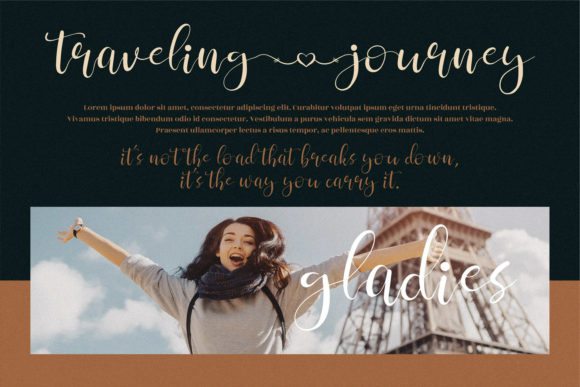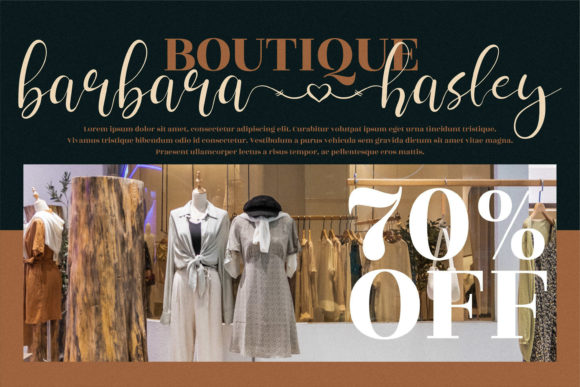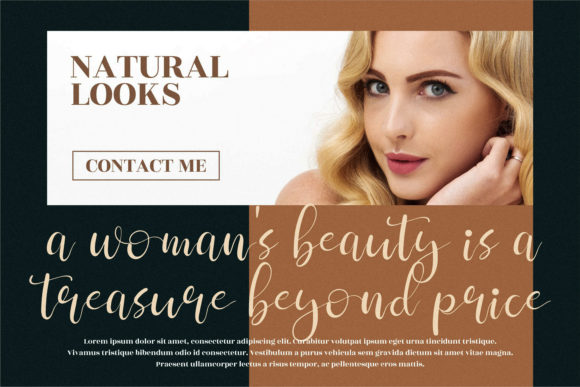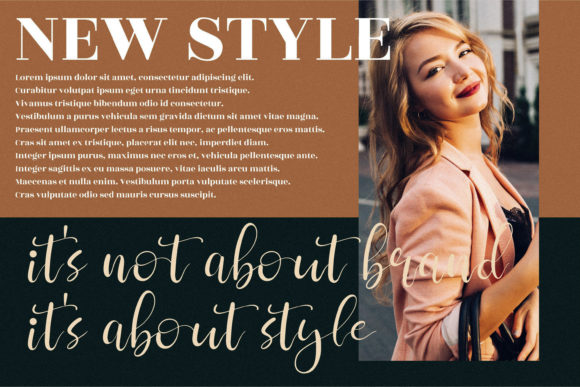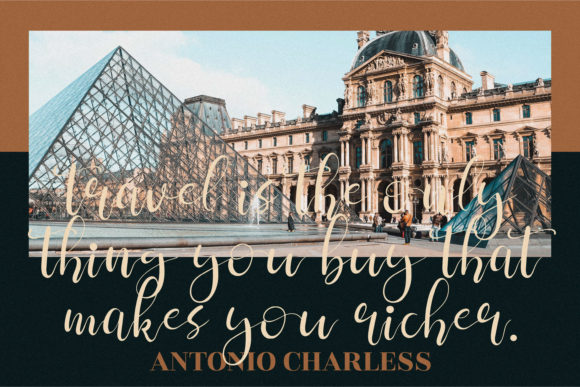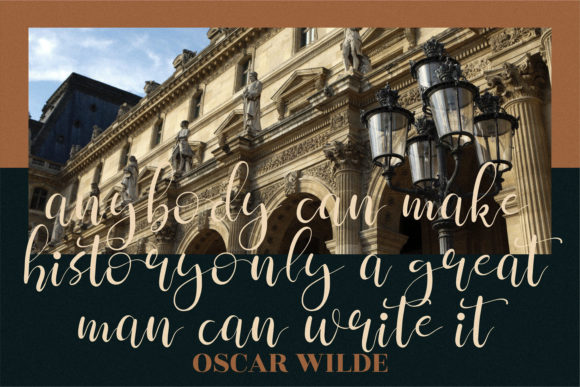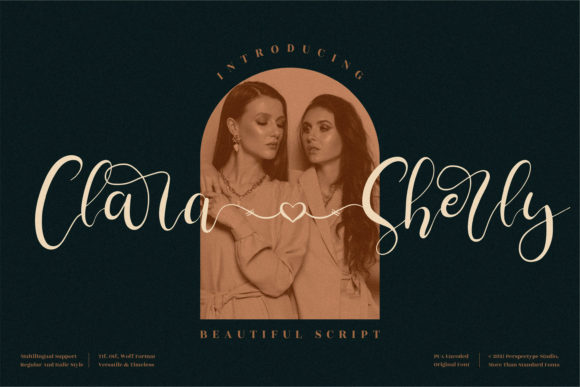
Introducing Clara Sherly Font: Elevate Your Designs with Elegance and Sophistication
Are you a designer or crafter looking for a font that exudes class, elegance, and modernity? Look no further than Clara Sherly Font, a beautiful and refined script font that can elevate your designs to new heights. With its versatile and stylish aesthetic, Clara Sherly Font is perfect for a wide range of applications, from logos and branding to invitations, stationery, wedding designs, social media posts, and more.
The Characteristics of Clara Sherly Font
Clara Sherly Font boasts a classy, elegant, and modern look that is sure to impress. Its refined script style features flowing lines, delicate curves, and a sophisticated flair that adds a touch of luxury to any design. Whether you’re creating a logo, invitation, or social media post, Clara Sherly Font is the perfect choice for designers and crafters who want to make a statement.
One of the standout features of Clara Sherly Font is its PUA (Private Use Area) encoding. This means that you can access all of the glyphs and swashes with ease, giving you complete creative control over your designs. With PUA encoding, you can effortlessly navigate the font’s extensive character set, including alternate letters, ligatures, and ornaments, to create truly unique and eye-catching designs.
Clara Sherly Font is an incredibly versatile font that can be used for a wide range of design applications. Here are just a few ideas to get you started:
- Logos and Branding: Create a lasting impression with a custom logo or brand identity that showcases your business’s unique personality and style.
- Invitations and Stationery: Add a touch of elegance to your invitations, greeting cards, and stationery with Clara Sherly Font’s refined script style.
- Wedding Designs: Make your wedding designs truly unforgettable with Clara Sherly Font’s beautiful and sophisticated aesthetic.
- Social Media Posts: Elevate your social media presence with eye-catching graphics and posts that feature Clara Sherly Font’s stylish and modern look.
Why Choose Clara Sherly Font?
So why should you choose Clara Sherly Font for your design projects? Here are just a few compelling reasons:
- Unique and Versatile: Clara Sherly Font offers a distinctive and versatile aesthetic that can be used for a wide range of design applications.
- Elegant and Sophisticated: With its refined script style and PUA encoding, Clara Sherly Font is the perfect choice for designers and crafters who want to add a touch of elegance and sophistication to their designs.
- Easy to Use: Clara Sherly Font is incredibly easy to use, with PUA encoding that makes it simple to access all of the glyphs and swashes.
In conclusion, Clara Sherly Font is a beautiful and refined script font that offers a classy, elegant, and modern look that’s perfect for designers and crafters. With its PUA encoding, versatile aesthetic, and endless design possibilities, Clara Sherly Font is the perfect choice for anyone looking to elevate their designs and make a lasting impression.